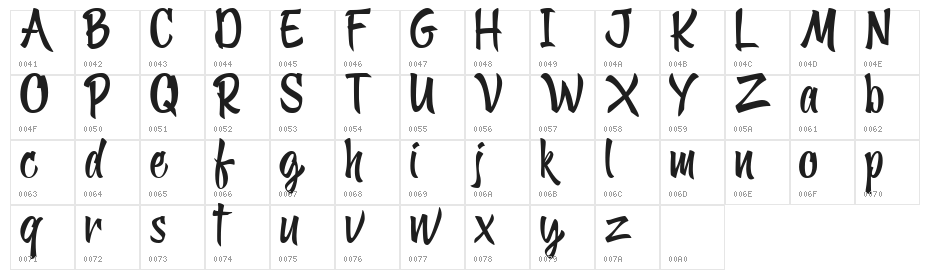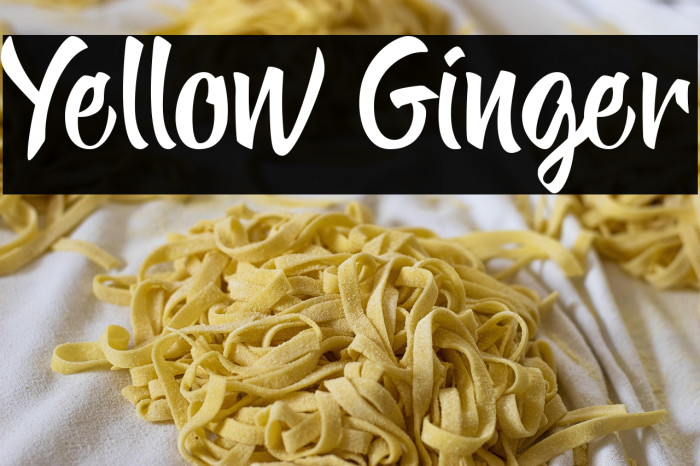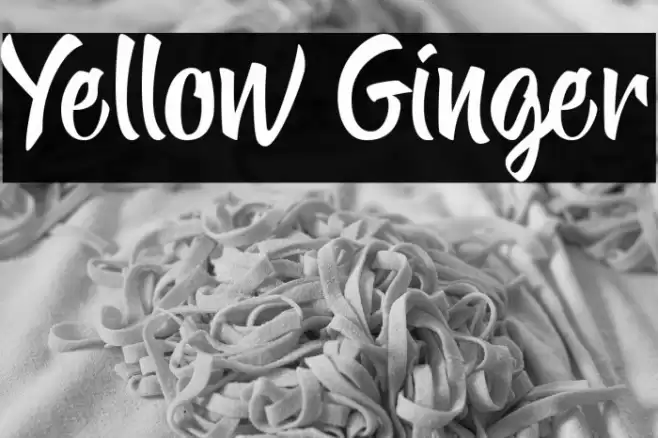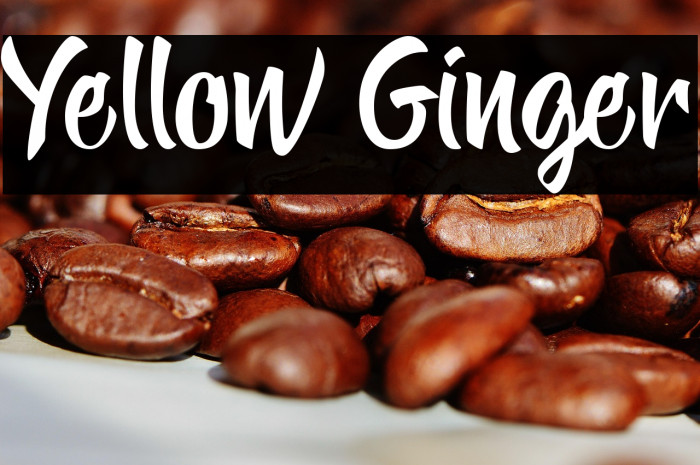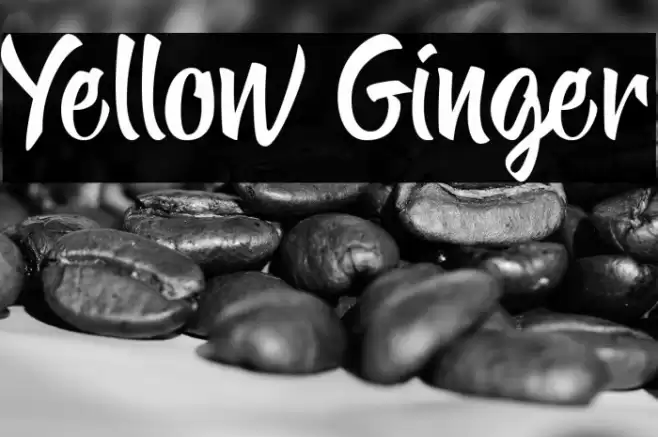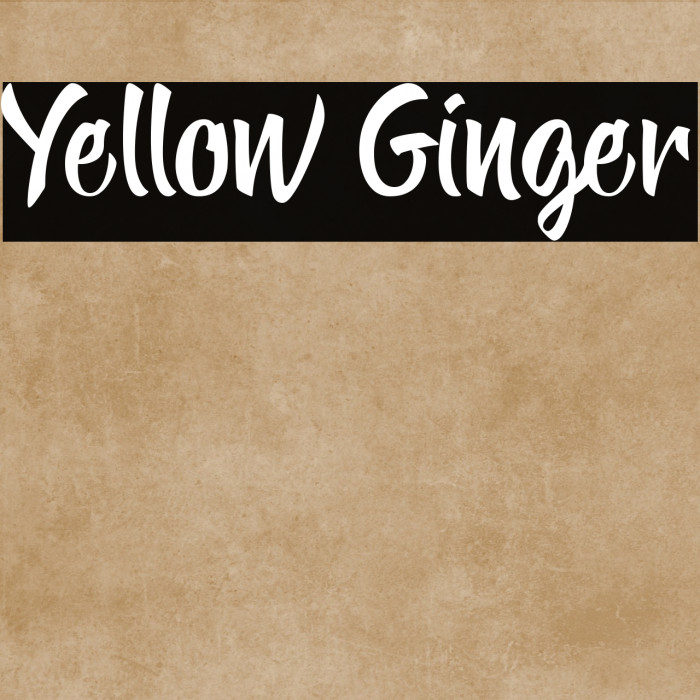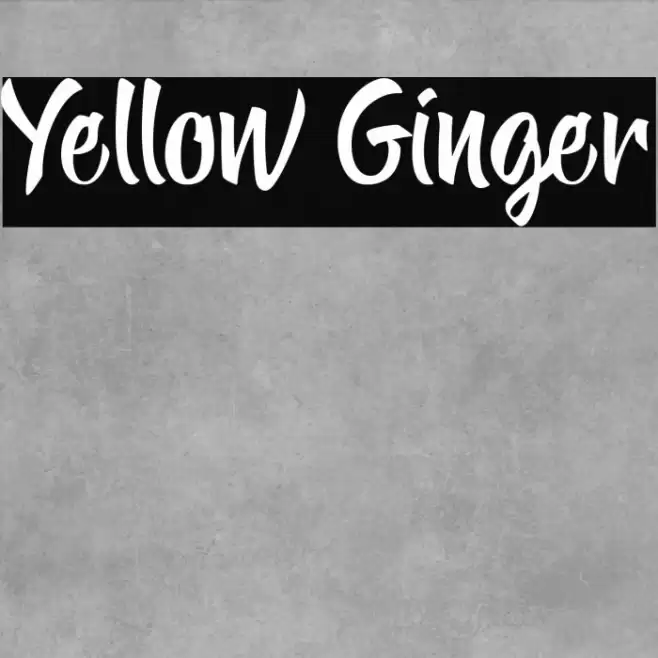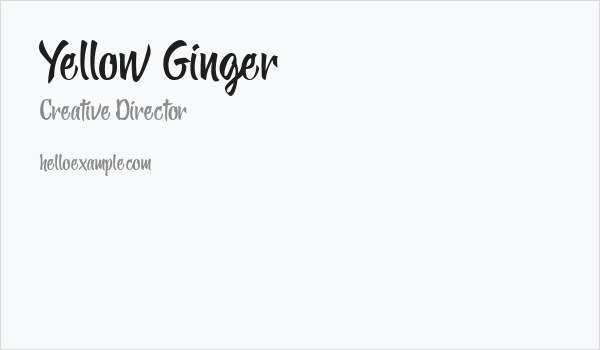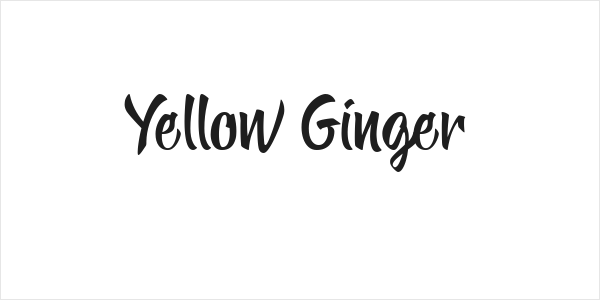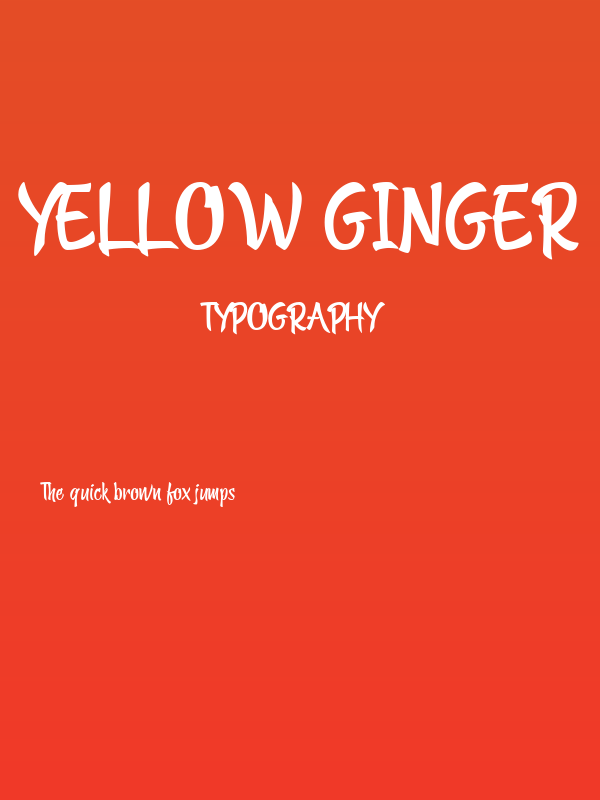
Yellow Ginger Font
Yellow Ginger Description
This font exhibits a bold, expressive style with a handwritten appearance. The strokes are thick and dynamic, giving it a lively and energetic feel. The characters are slightly slanted, adding to the informal and casual vibe. The uppercase and lowercase letters are well-balanced, with a consistent flow that enhances readability. The font's playful nature makes it suitable for creative projects that require a personal touch. Its unique character shapes and varying stroke widths contribute to its distinctive look, making it stand out in any design.
| Proposed Projects | Ideal for greeting cards, posters, branding, and social media graphics. |